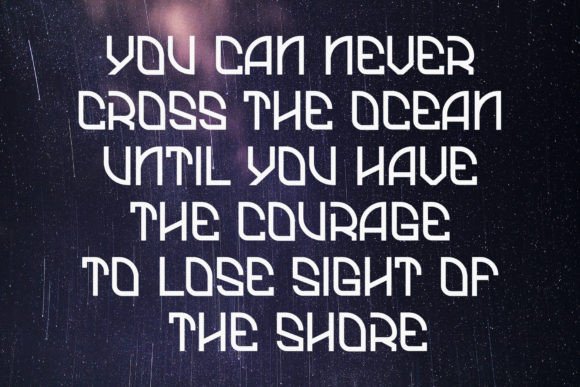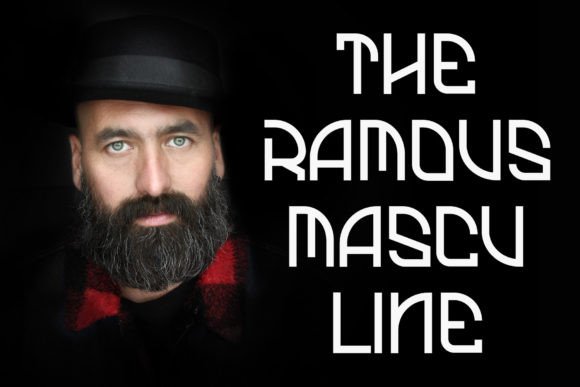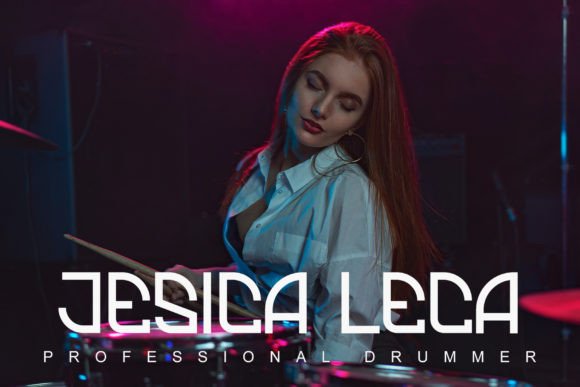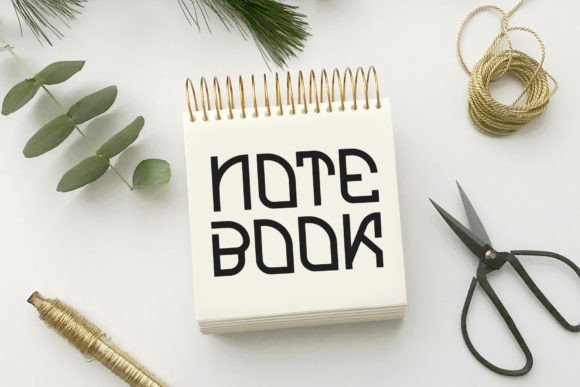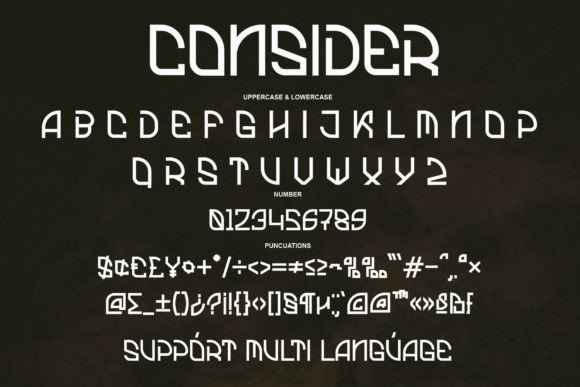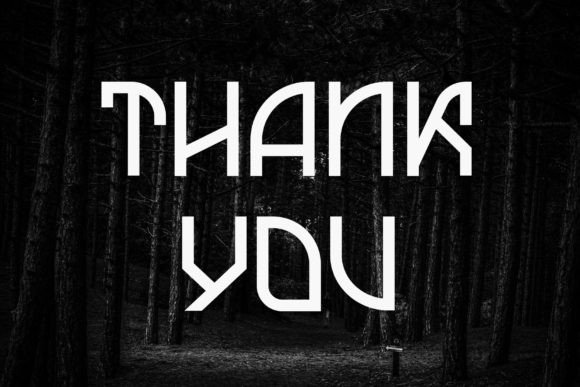
Introducing Consider Font: Elevate Your Designs with a Stylish and Modern Sans Serif
In the world of typography, fonts play a crucial role in conveying messages, evoking emotions, and setting the tone for various designs. For designers, crafters, and creators, finding the perfect font can be a daunting task. However, if you’re looking for a stylish and modern sans serif font that can elevate your designs, look no further than Consider Font. In this article, we’ll dive into the features, benefits, and uses of Consider Font, and explore how it can add a happy touch to your creations.
What is Consider Font?
Consider Font is a sleek and contemporary sans serif font designed to cater to a wide range of applications. Its clean lines, simple shapes, and elegant curves make it an ideal choice for various design projects. Whether you’re working on greeting cards, headlines, branding, packaging, or any other creative endeavor, Consider Font is sure to impress.
Key Features of Consider Font
- Modern and Stylish: Consider Font boasts a fresh and modern aesthetic that’s perfect for designs that require a touch of sophistication.
- Sans Serif: The font’s sans serif design ensures that your text remains clean, legible, and easy to read.
- Versatile: Consider Font can be used for a wide range of applications, from digital designs to print materials.
- Easy to Read: The font’s clear and simple design makes it easy to read, even at smaller font sizes.
Benefits of Using Consider Font
So, why should you choose Consider Font for your designs? Here are just a few benefits of using this amazing font:
- Enhance Your Brand’s Visual Identity: Consider Font can help you create a consistent visual brand identity that reflects your company’s values and personality.
- Stand Out from the Crowd: With its unique and stylish design, Consider Font can help your designs stand out in a crowded market.
- Increase Legibility: The font’s clear and simple design ensures that your text is easy to read, reducing the risk of miscommunication.
- Save Time: Consider Font is easy to use and can be applied to various design projects, saving you time and effort.
Uses of Consider Font
Consider Font is an incredibly versatile font that can be used for a wide range of applications, including:
- Greeting Cards: Add a personal touch to your greeting cards with Consider Font’s elegant and modern design.
- Headlines: Use Consider Font to create attention-grabbing headlines that capture your audience’s attention.
- Branding: Establish a consistent visual brand identity with Consider Font’s clean and sophisticated design.
- Packaging: Elevate your packaging designs with Consider Font’s stylish and modern aesthetic.
Tips for Using Consider Font
To get the most out of Consider Font, here are a few tips to keep in mind:
- Experiment with Font Sizes: Consider Font looks great at various font sizes, so don’t be afraid to experiment and find the perfect size for your design.
- Pair with Other Fonts: Consider Font pairs well with other fonts, so feel free to get creative and find the perfect font combination for your design.
- Use it Consistently: To establish a consistent visual brand identity, use Consider Font across all your designs.
In conclusion, Consider Font is a stylish and modern sans serif font that’s perfect for designers, crafters, and creators looking to elevate their designs. With its clean lines, simple shapes, and elegant curves, Consider Font is sure to add a happy touch to your creations. Whether you’re working on greeting cards, headlines, branding, packaging, or any other design project, Consider Font is an excellent choice. So why wait? Download Consider Font today and take your designs to the next level!